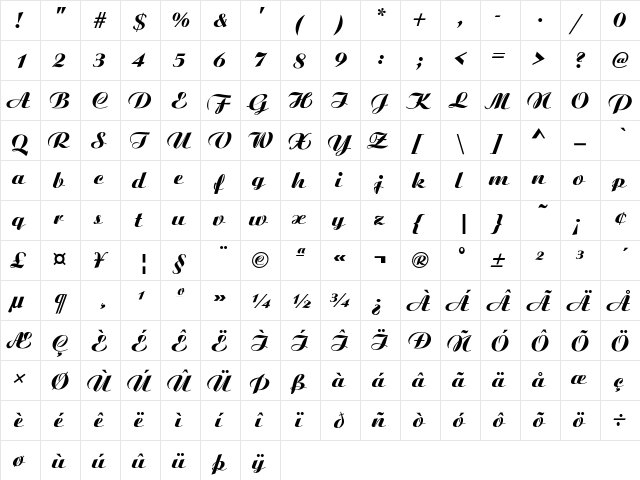
Nomalithicly - Normal Regular Font Preview
Nomalithicly - Normal Regular
Nomalithicly - Normal Regular Font Details
Design Context for Nomalithicly - Normal Typeface
Nomalithicly - Normal is a composed and adaptable typeface that performs quietly and consistently across a wide range of design contexts.